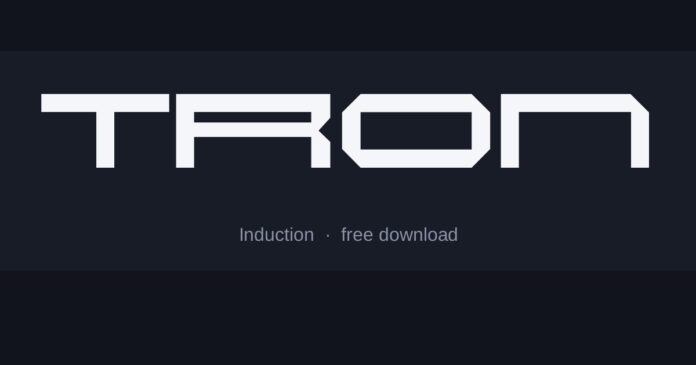
Tron Font
What font is the Tron logo?
The 1982 logo is custom, built from straight segments with the corners cut at hard angles — letters that look like they were drawn by a plotter rather than a hand.
Tron: Legacy replaced it with a much cleaner wide geometric, so which era you mean changes the answer.
• Induction matches the Legacy era — wide, light and precisely geometric.
• Joy Circuit is outlined and technical, closest to the original circuit-board styling.
• Quadaptor is squarer and more mechanical, good for subtitles and interface text.
Where the style comes from
The film’s whole visual language came from early computer graphics, where curves were expensive and straight line segments were cheap. The lettering copies that limitation deliberately, using angled cuts instead of curves.
That is why an outlined or segmented face reads as Tron even when the proportions are wrong — the cut corners carry the association on their own.
Setting it well
• Cyan on black is doing most of the work; the typeface is the smaller half of the effect
• An outline with a soft glow beats a solid fill, because the original letters are lit edges rather than shapes
• Keep the line short — the style falls apart across a full sentence
Is this the exact font used for Tron?
Not exactly. The original lettering was custom drawn or is not publicly licensed, so the fonts here are close recreations. Induction is the nearest match we have found.